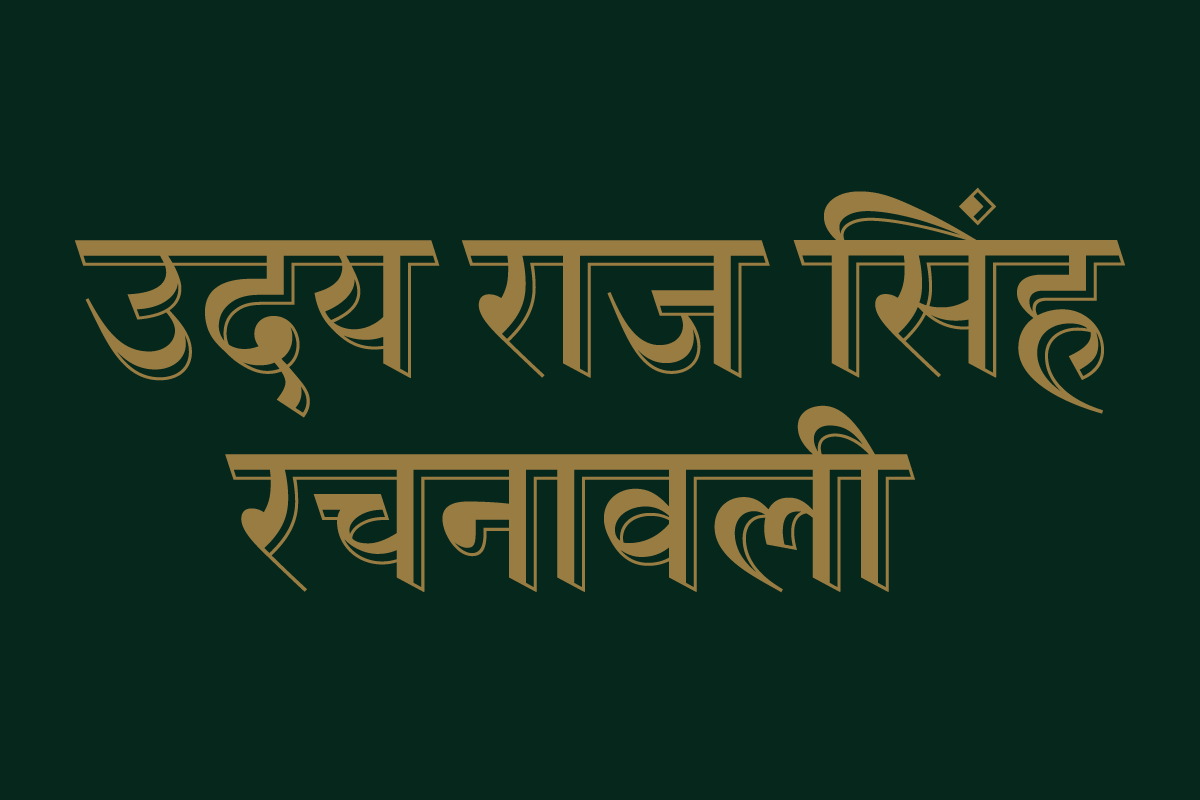
Uday Raj Sinha Rachnavali — custom Devanagari lettering to celebrate an eminent literary figure of the 20th century
In 2021, the team at renowned Hindi literary magazine Nayi Dhara published two volumes of collected writing by their founding editor, celebrated writer and publisher Uday Raj Sinha to mark his birth centenary. I drew custom lettering for the covers of these volumes, inspired by decorative metal typefaces of the Jawaji Dadaji Type Foundry: specifically 36 point ornamented ‘Dattaram’ and 48 point ornamented ‘Madhukar’, as shown in their 1967 catalogue.
The visual references were selected for their classical appearance and ornamental features. Our goal was to create lettering that harked back to the past, but did not belong to it. To achieve this objective, the depth and three-dimensionality of the original were retained, while the proportions of the letterforms were updated to suit contemporary taste.
Additionally, I art directed the design of the book, which along with illustrations, was executed in-house at Nayi Dhara.